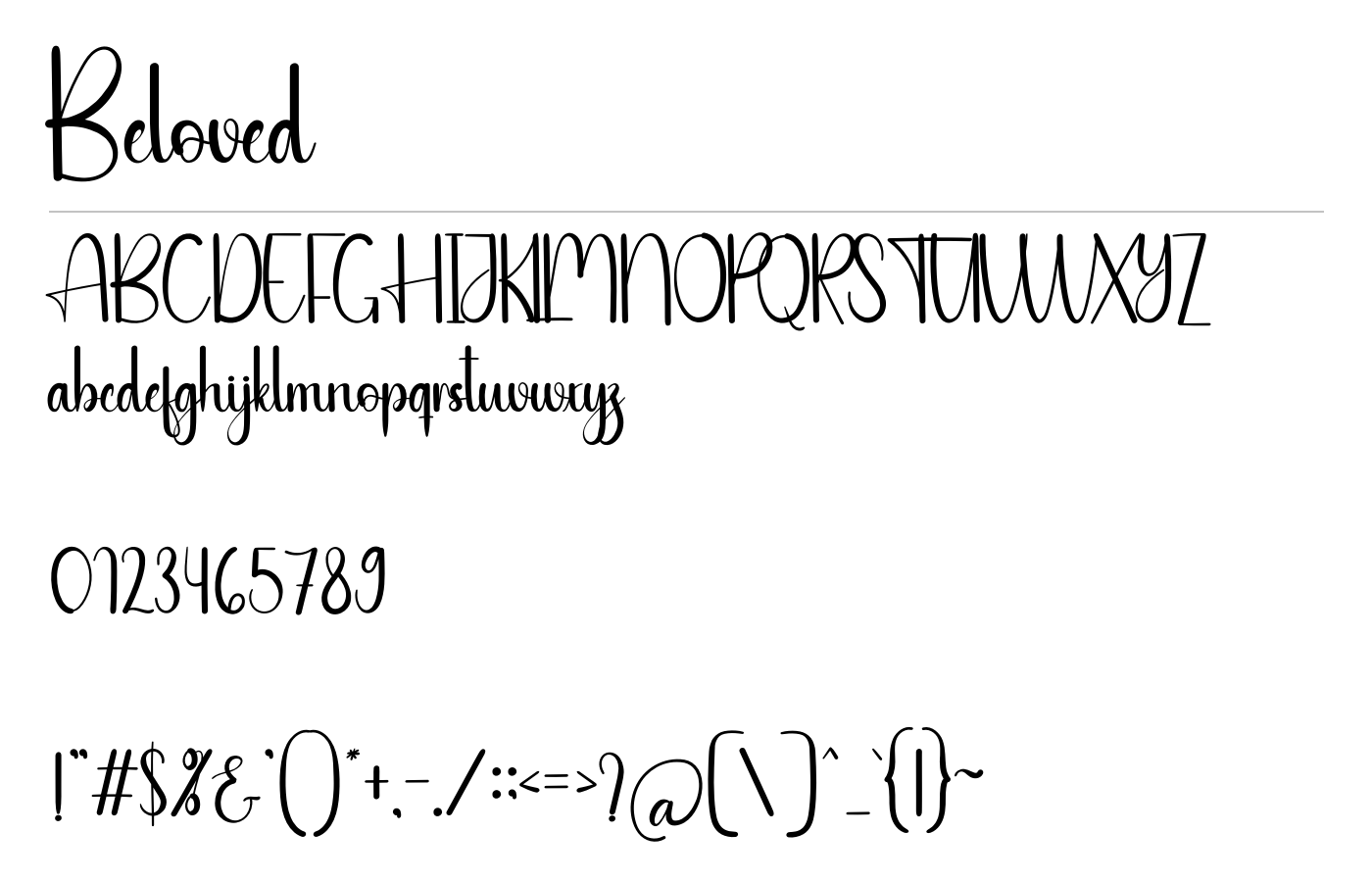
Beloved Font is a playful and elegant handwritten typeface with a tall, narrow structure and delicate strokes that give it a charming, whimsical feel. Its unique mix of loosely connected uppercase letters and flowing lowercase characters makes it perfect for creative projects, invitations, and branding that want to convey warmth and personality. This font works well in designs that seek a friendly yet refined look, especially in headlines, logos, and packaging.
Beloved Font